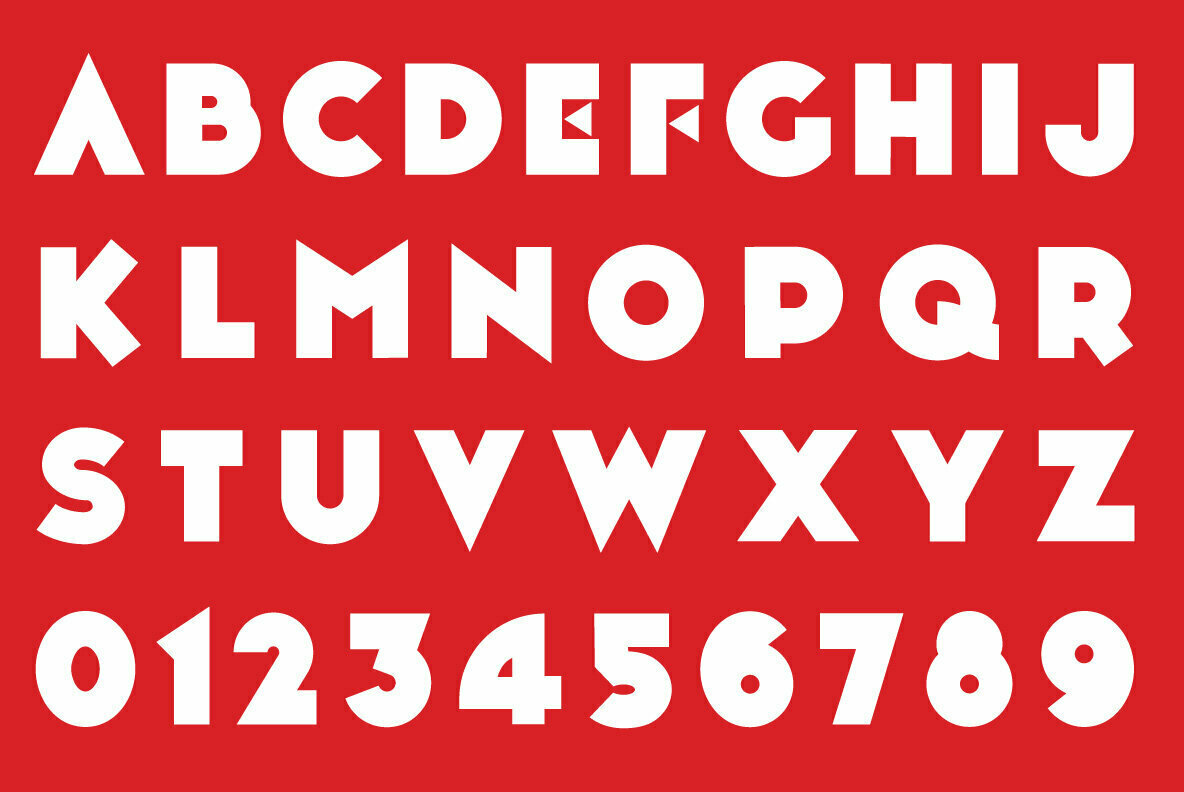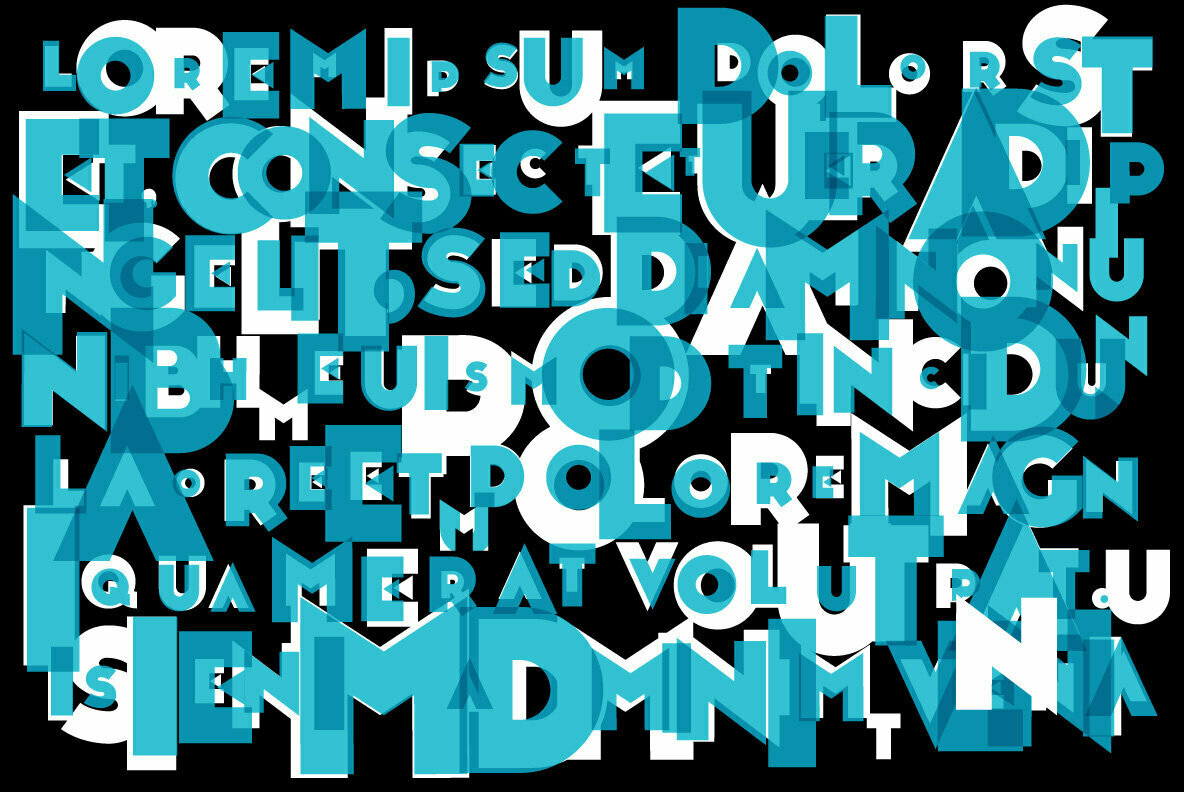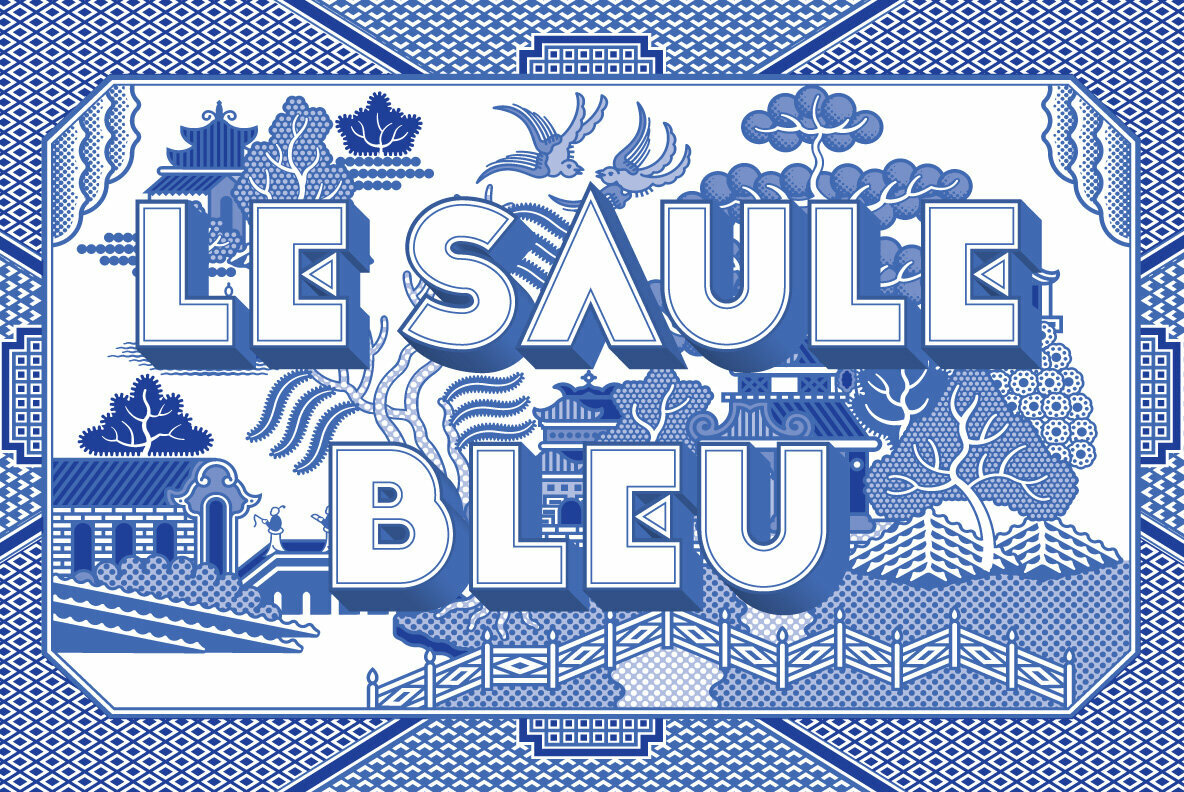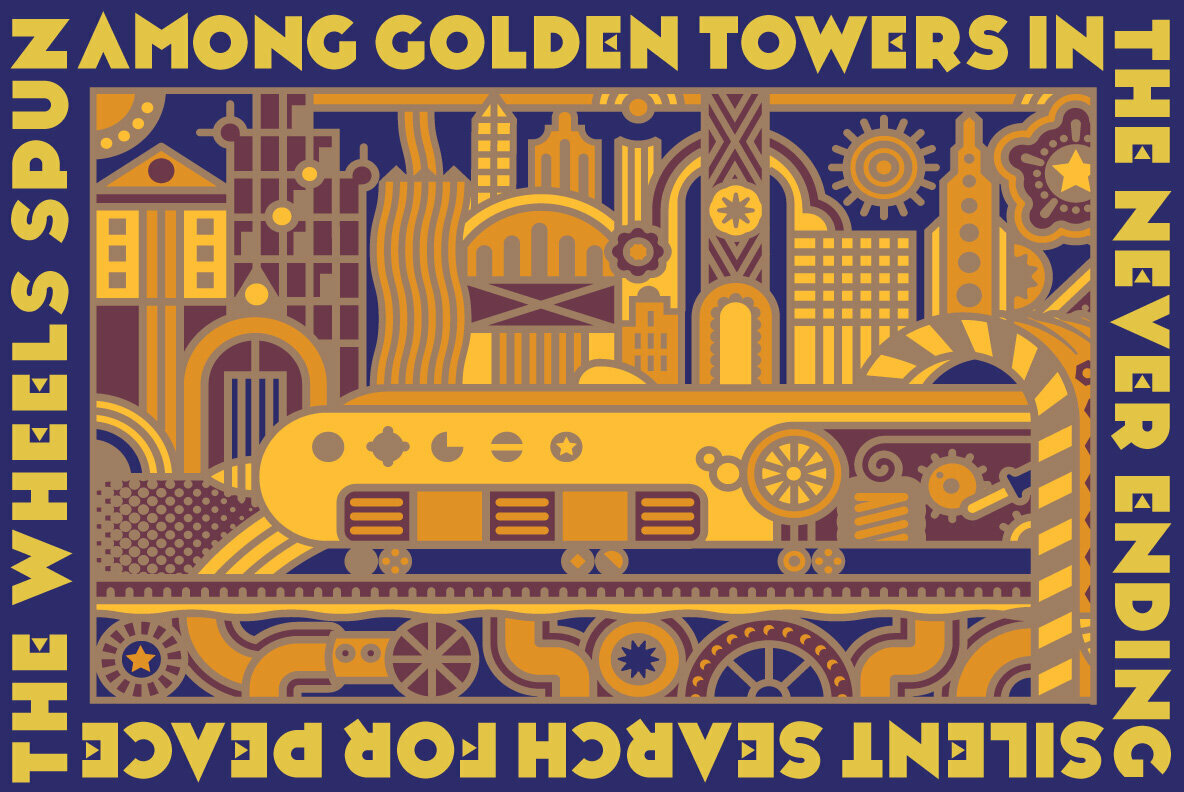
Noir et Blanc began as a proposed logo for a new Broadway production of Moulin Rouge and ended up as a challenge to find how bold a stroke weight could still be beautifully legible. Now that it is complete, we hope it will have the chance to become noir et blanc et rouge partout.